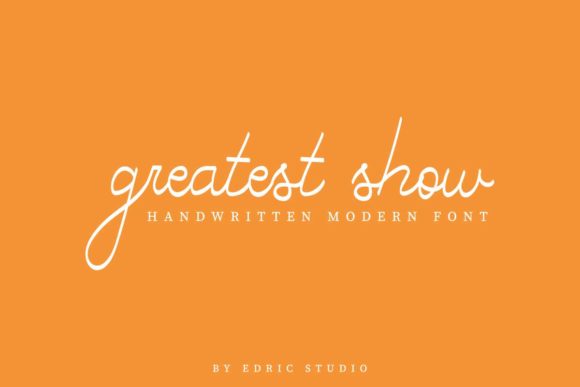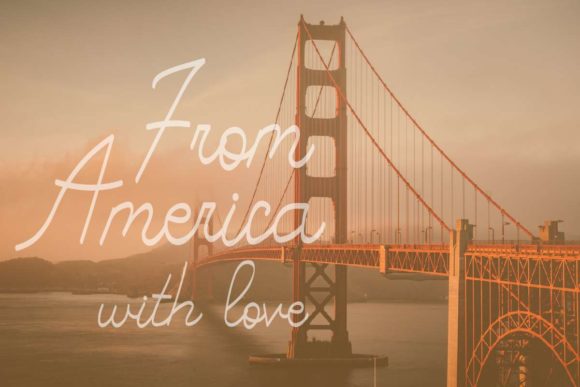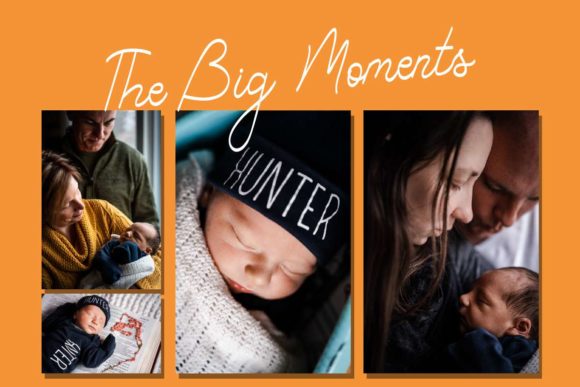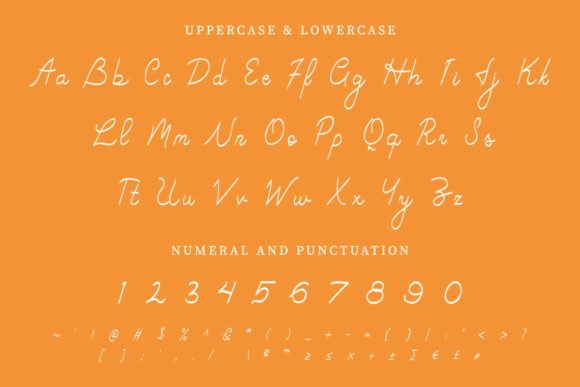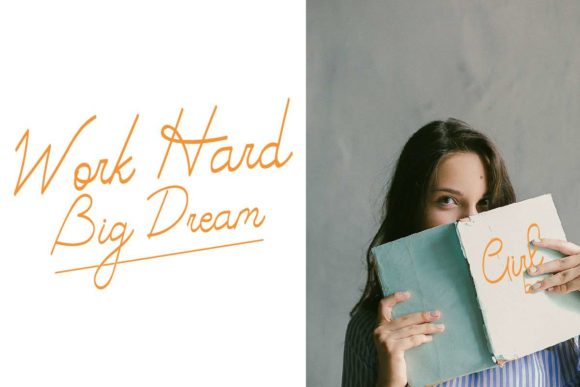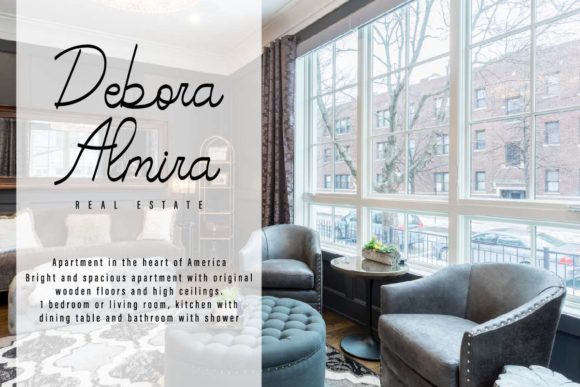
Step Right Up: Discover the Magic of Greatest Show Font
As a designer, have you ever stared at a blank page, searching for the perfect font to bring your project to life? The struggle is real, but what if I told you that there’s a font that could be the missing piece to your creative puzzle? The Greatest Show Font is here to mesmerize you with its elegant touch and timeless style, making it the perfect addition to your favorite projects.
With its flowing handwritten design, the Greatest Show Font is sure to captivate your audience and leave a lasting impression. Whether you’re creating a stunning brochure, a beautiful invitation, or a captivating logo, this font is the perfect choice. Its versatility and unique character make it a valuable asset for designers who want to stand out from the crowd and create truly spectacular designs.
Greatest Show Font Key Features
- Font Family: Greatest Show Font is a unique, hand-drawn font family that includes 6 different styles: Regular, Italic, Bold, Bold Italic, Script, and Script Italic.
- Character Set: Includes a comprehensive set of characters, including uppercase and lowercase letters, numbers, punctuation marks, and special characters.
- Unique Characteristics: The font features a distinctive, vintage-inspired design with intricate details and flourishes, making it perfect for adding a touch of elegance and sophistication to designs.
Greatest Show Font Review
I’ve had the chance to work with the Greatest Show Font, and I must say it’s a unique and eye-catching choice. ✨ The font’s circus-inspired design is perfect for projects that need a bold and playful feel. It’s great for creating attention-grabbing headings, titles, or even logos.
Here are some of the font’s strengths:
- ✨ Highly customizable: The Greatest Show Font comes with a wide range of options for adjusting letter spacing, font size, and color.
- ✨ Unique character set: The font includes a variety of special characters, such as emotes and symbols, that can add a touch of whimsy to your designs.
However, I do have some concerns:
- ⚠️ Limited legibility: At smaller font sizes, the Greatest Show Font can become difficult to read, especially for those with visual impairments.
- ⚠️ Limited language support: The font is currently only available in a limited range of languages, which may limit its use in international projects.
Overall, the Greatest Show Font is a great choice for projects that require a bold and playful touch. While it has some limitations, its unique design and customization options make it a valuable addition to any designer’s toolkit.
Some tips for getting the most out of the Greatest Show Font include using it for bold headings, creating a sense of drama and excitement, and pairing it with a clean sans-serif font for body text. Common use cases include creating eye-catching posters, designing engaging presentations, and crafting unique titles and headings for your documents and graphics.